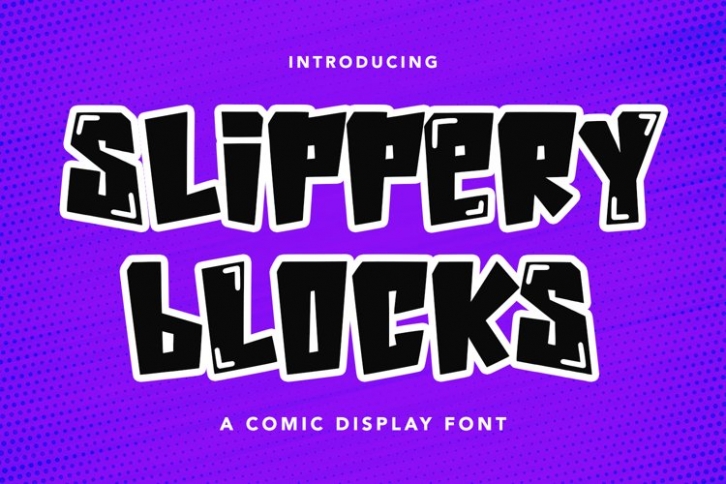
Slippery Blocks is a beautiful font that was designed by plusstore. It's a great choice for designers and creatives who need such a font. It was released on July 22, 2022 and the file size is 19.61 MB. Slippery Blocks may give a more youthful, expressive and casual look to your project. It is a very beautiful, refined, elegant, and high-quality font.